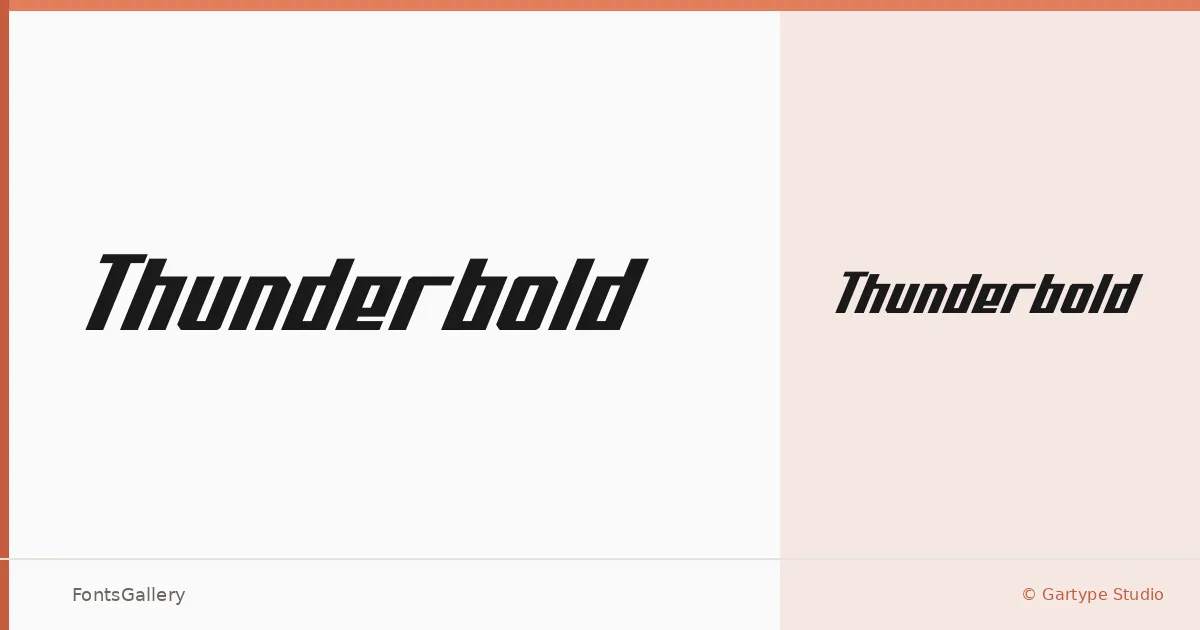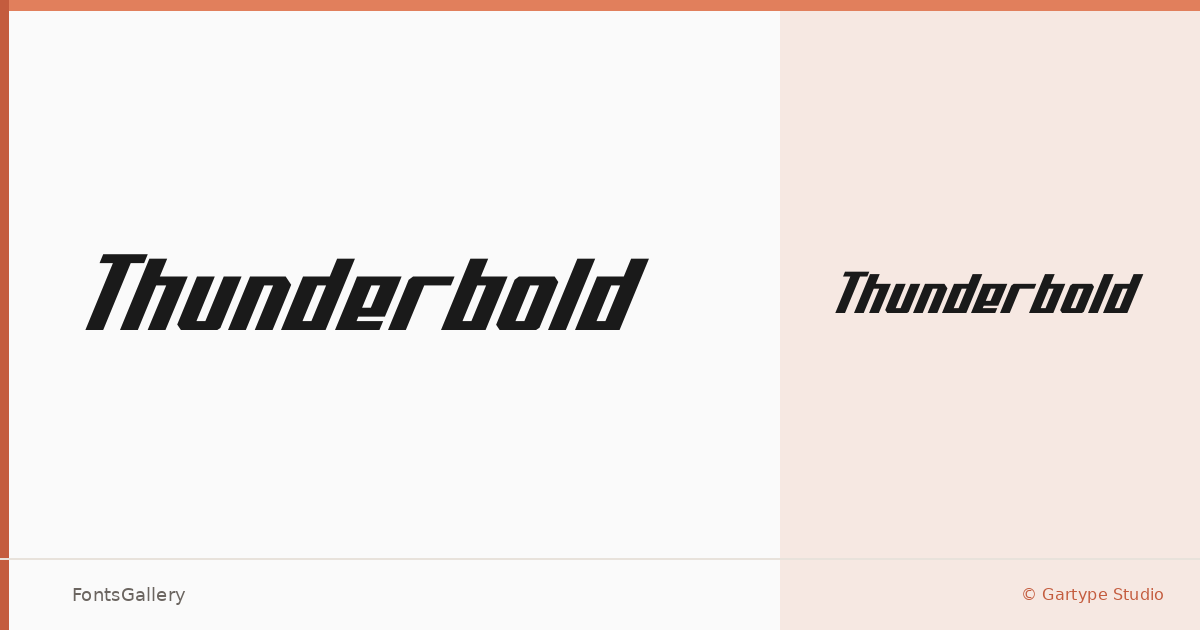
About Thunderbold Font
There is real weight behind every stroke here — the kind of deliberate heaviness that announces itself the moment a headline lands on the page. Designed by Gumilang Anggara Ruslan for Gartype Studio, this display face comes in a single Bold Regular cut delivered as an OTF file, built to hit hard in exactly the contexts where impact matters.
The letterforms sit firmly in display territory, carrying a futuristic and modern edge that reads as confident rather than aggressive. The bold geometry suits branding work and poster compositions where you need a face that holds its own at large sizes without falling apart. Because there is only one style in the family, its character is unambiguous — this is not a workhorse text face, it is a statement-maker for headlines, logos, and T-shirt graphics.
It earns its keep in branding identities, promotional posters, logo lockups, and apparel graphics where a modern, bold typographic voice is the point. For body copy or secondary type, it pairs naturally with neutrals like Helvetica or Aileron, and works alongside display companions such as Aranea, Aresink, and Alexandria when a layout calls for typographic contrast at the same scale.